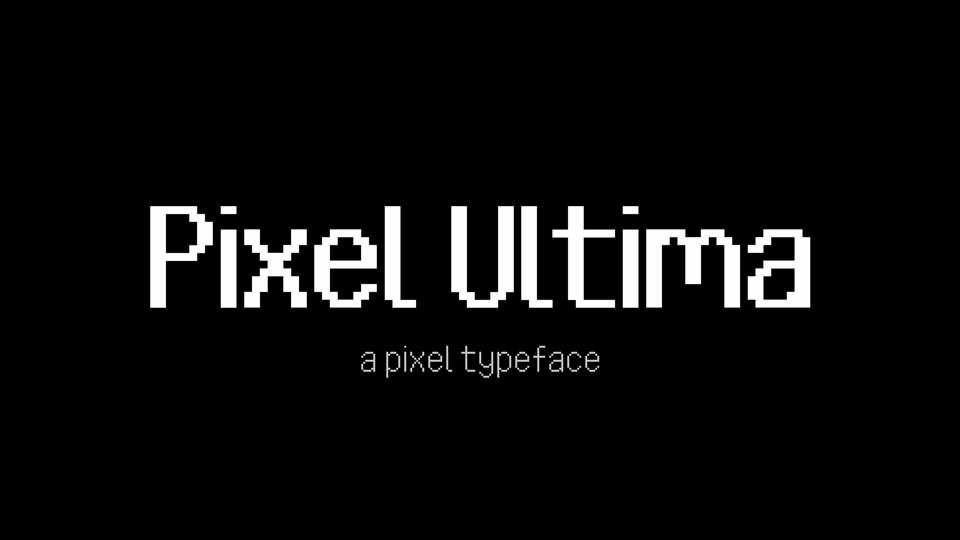
Download Pixel Ultima font, a pixel typeface designed to give a crisp look on screen at very small sizes, thus increasing legibility. Pixel Ultima is perfect for web pages and apps and any other system that uses a screen interface.
Designer: Douglas Leão